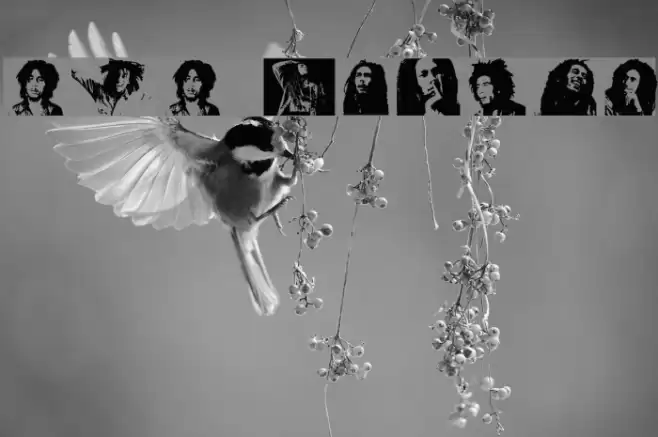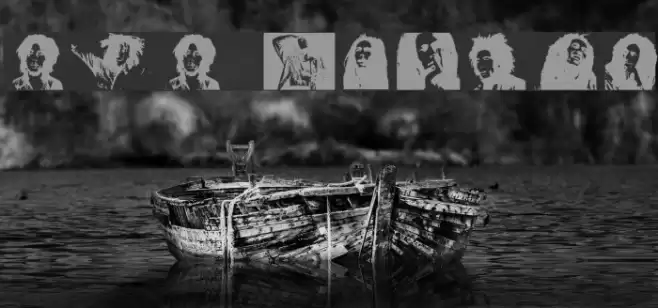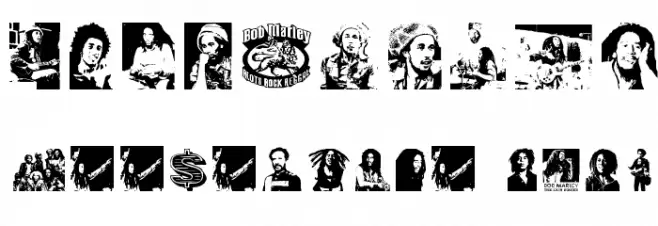
BOB MARLEY Font
BOB MARLEY Description
A decorative display set featuring high-contrast black and white stencil-style images of a famous musician, used as letterforms and symbols. Each character is represented by a unique portrait or scene, creating a visually striking and unconventional alphabet.
Stencil-style display set using iconic musician portraits as characters from Dingbats fonts.
- Proposed Projects: Posters, album covers, event flyers, themed merchandise, tribute artwork.
- Overall Style: Decorative, Artistic, Thematic
- Use Case: Headlines, Posters, Logos, Artistic projects